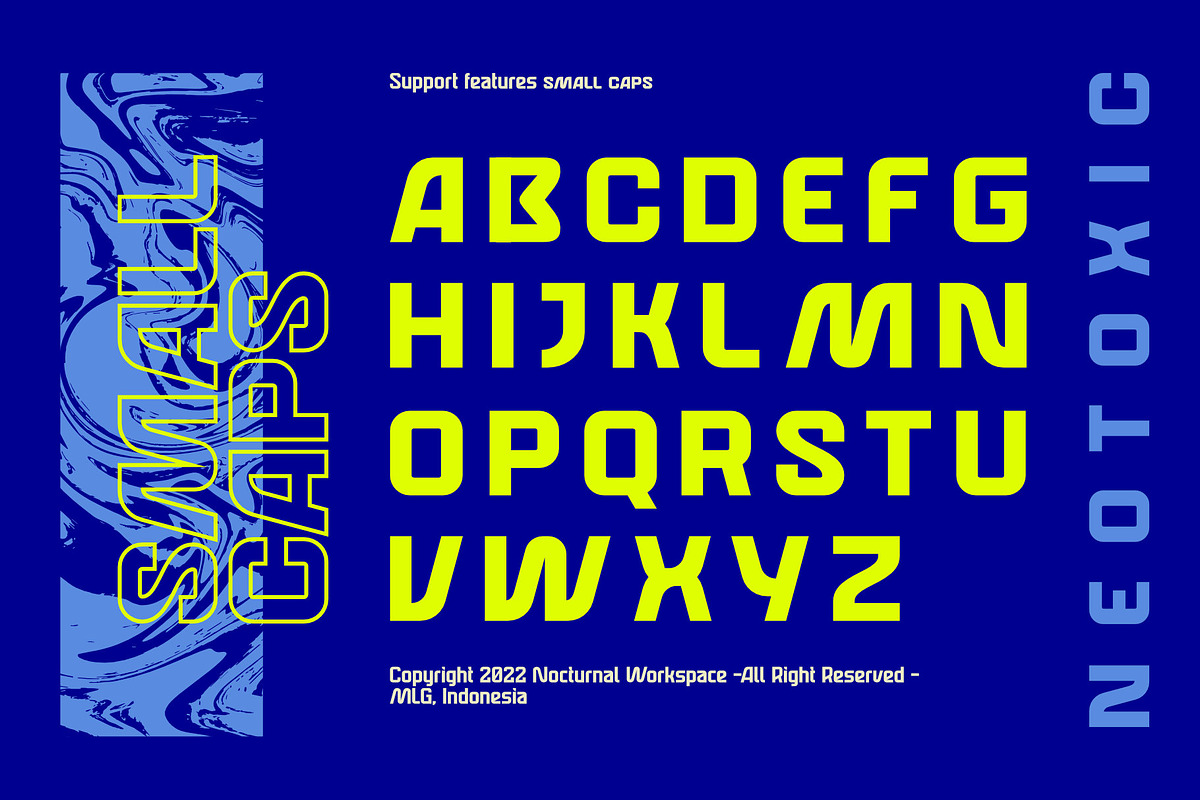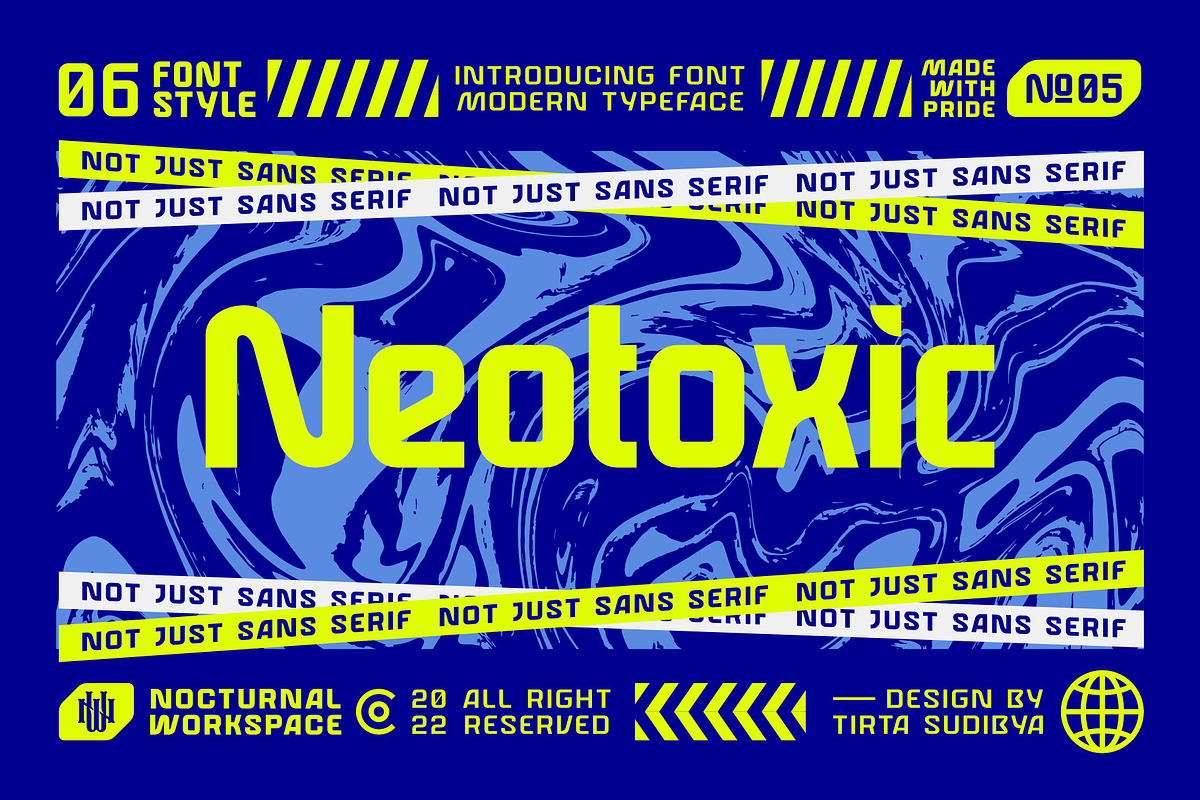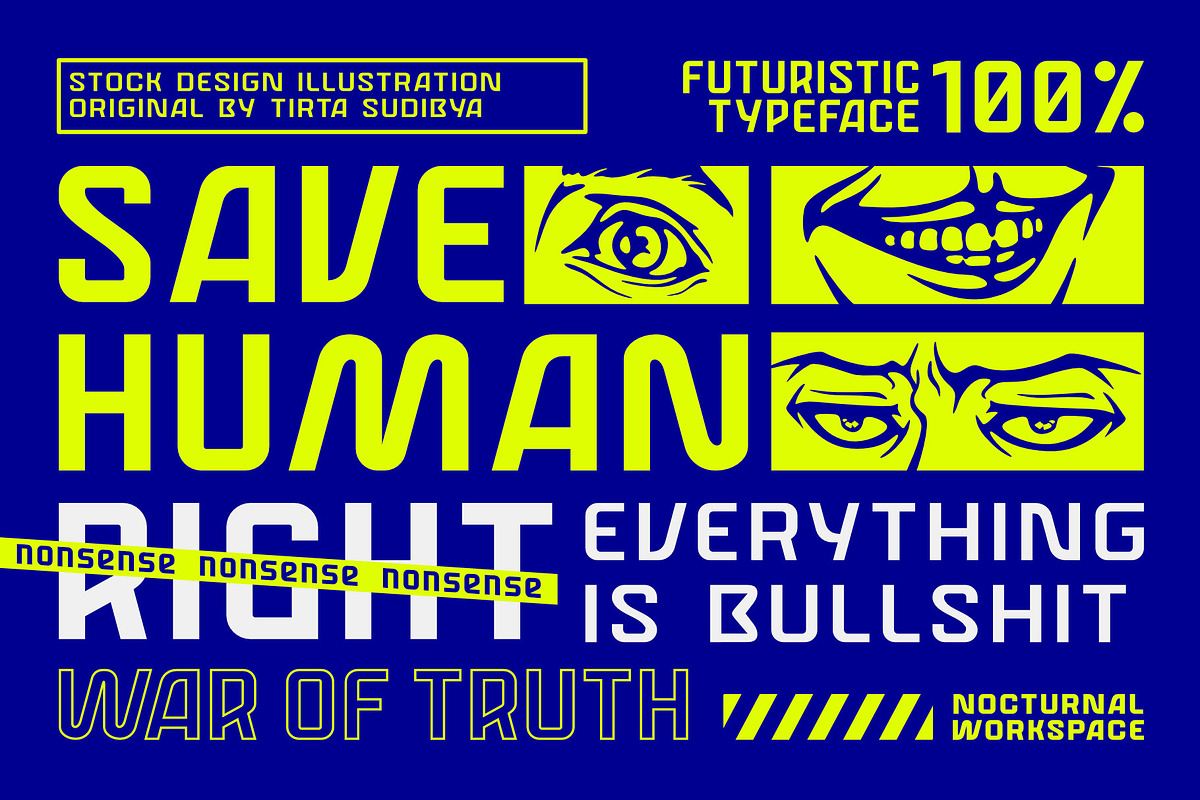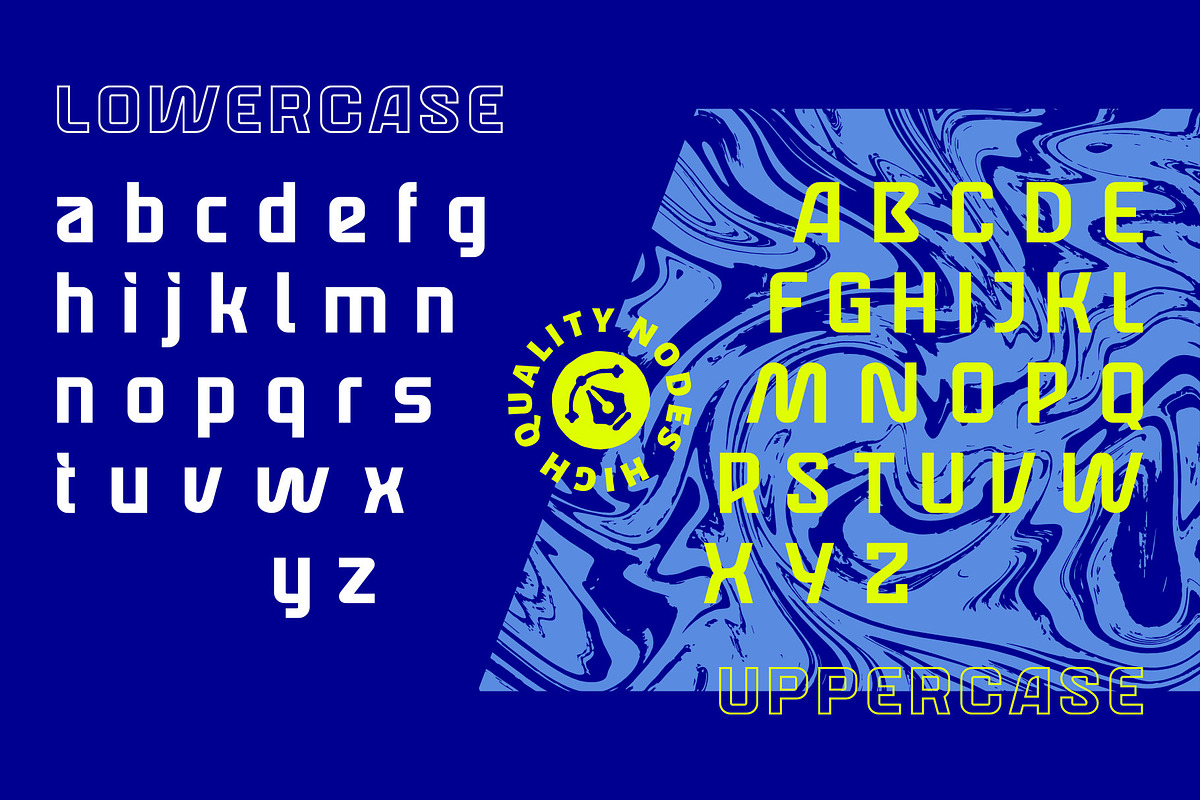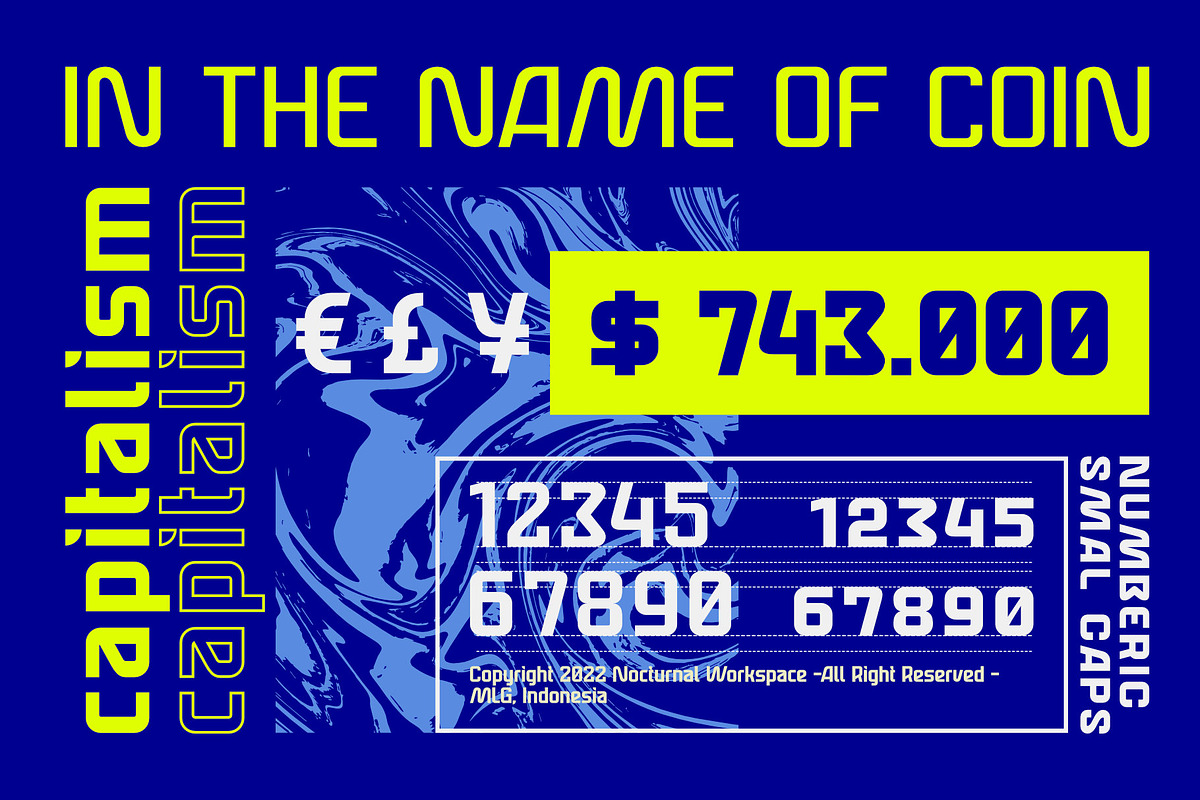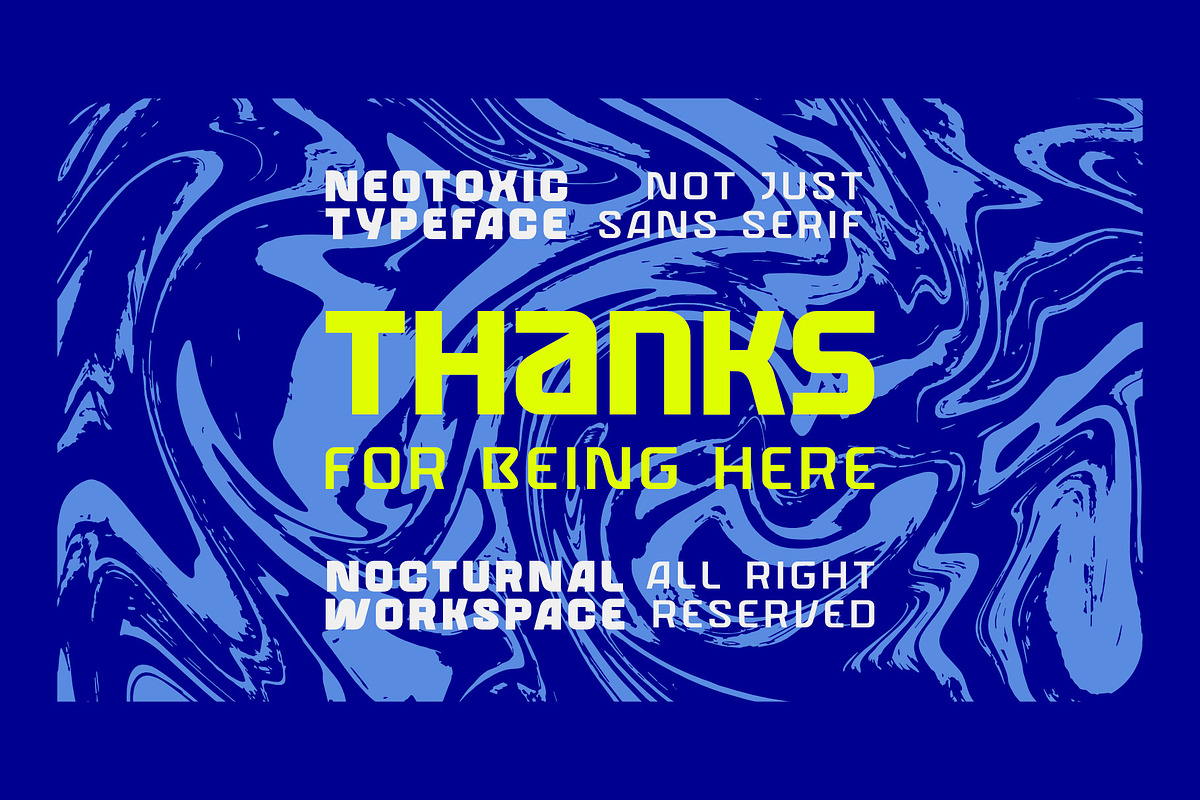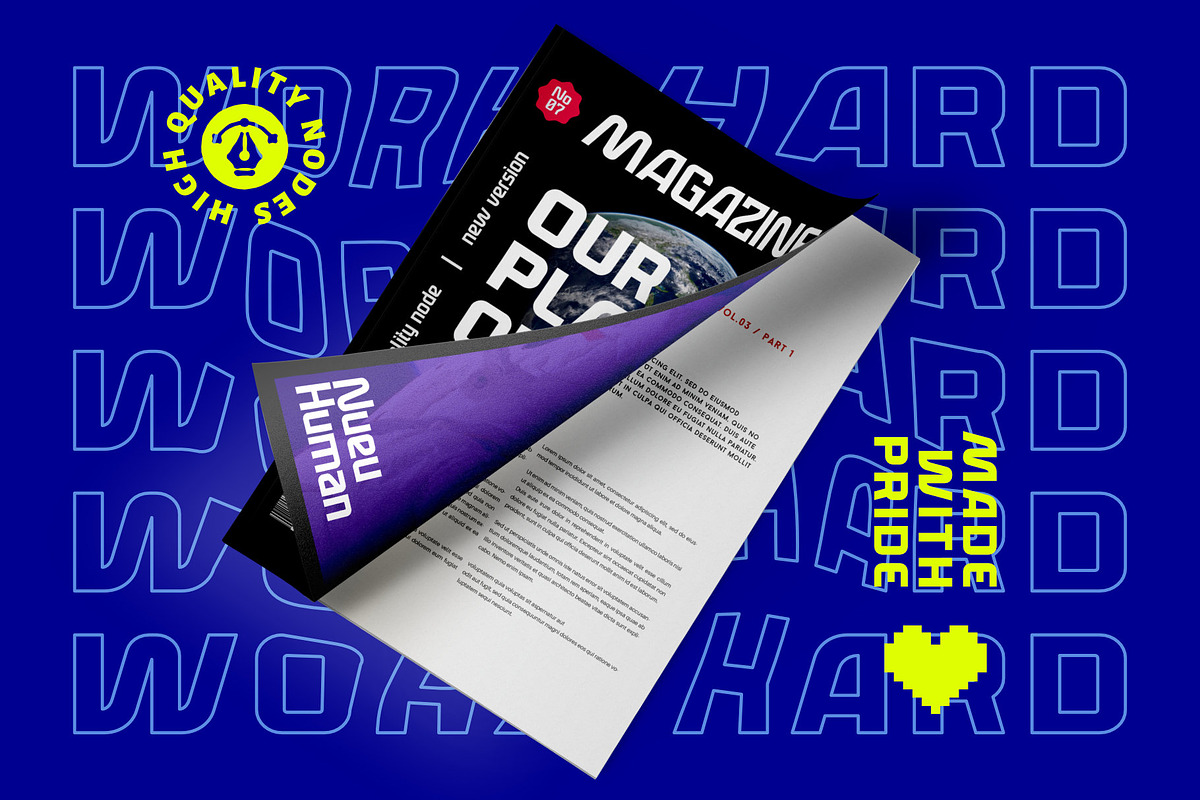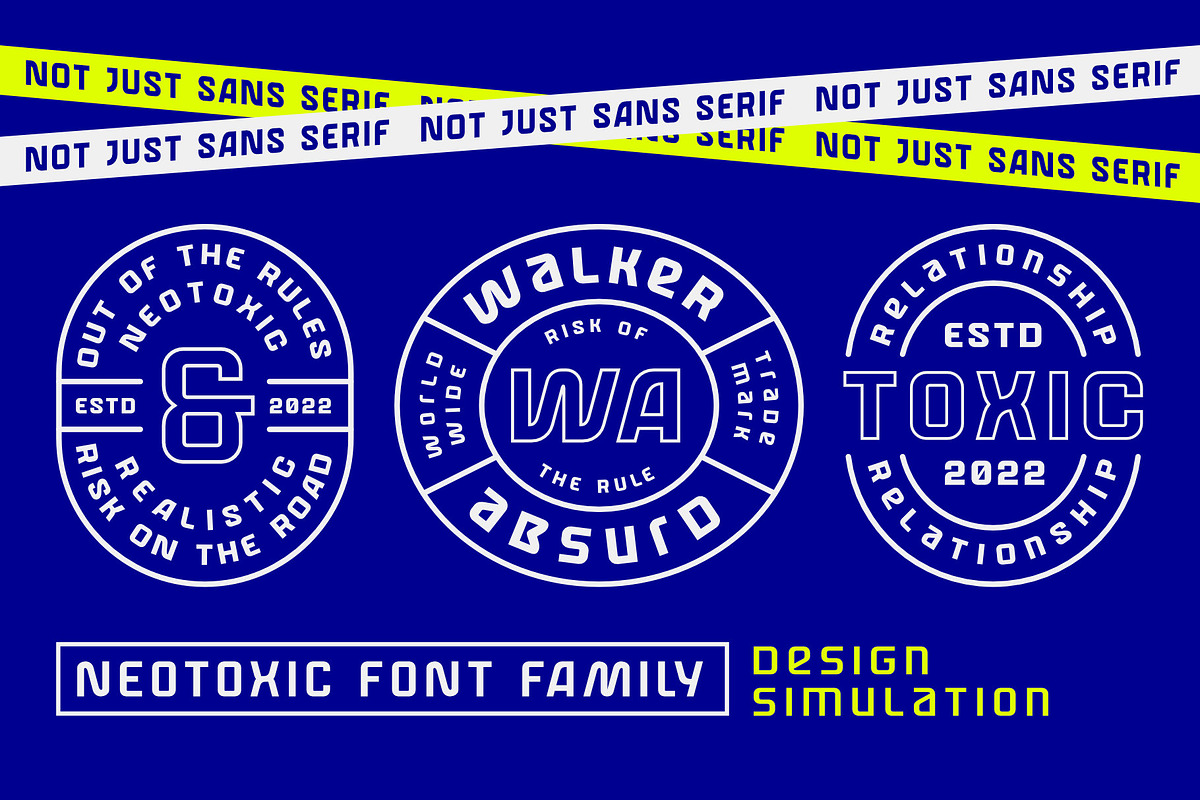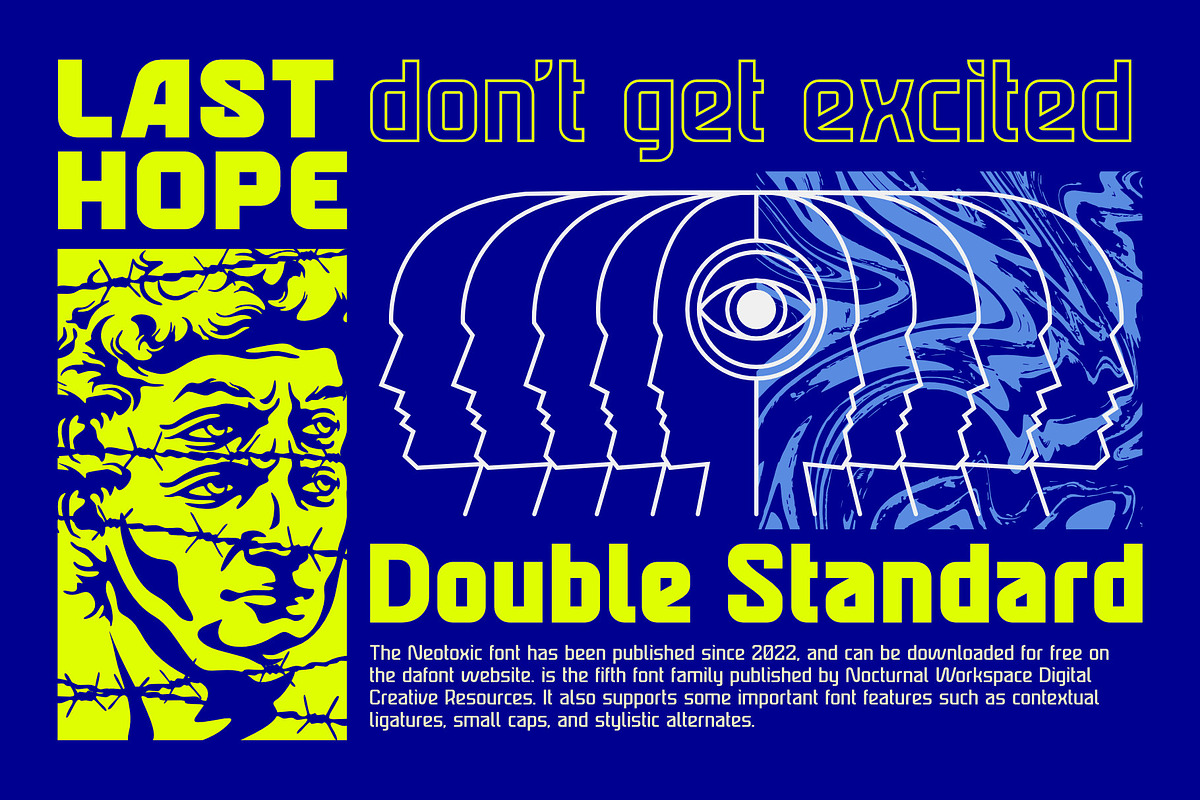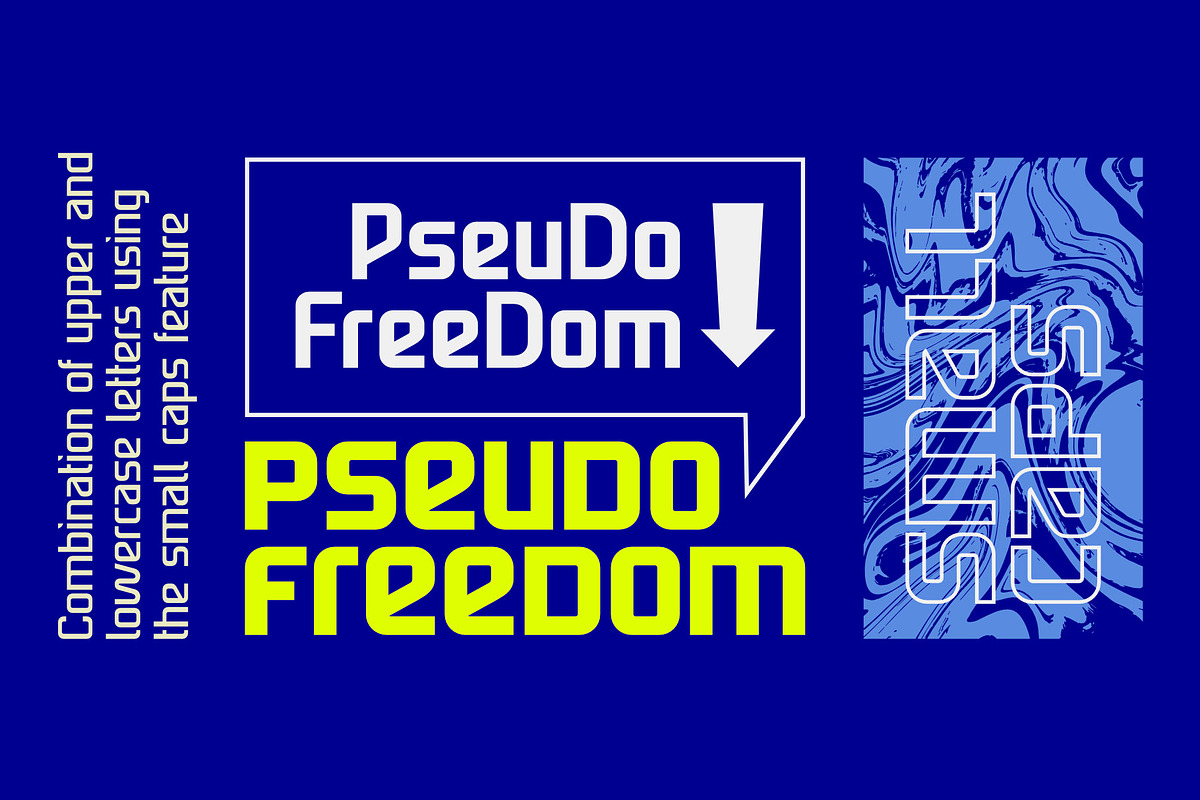
Neotoxic Futuristic Sans Serif
Neotoxic Font Family has been published since 2022, and can be downloaded for free on the dafont website. This font supports interesting features such as small caps, ligatures, salts, etc. also consists of 6 font styles including thin, light, regular, bold, black, outline.
- Features : Small Caps, Ligatures Contextual, Salt.
Neotoxic is suitable typeface for various purposes like logotype, signage, label, poster, dropcap, titles, letterhead, book cover and etc.